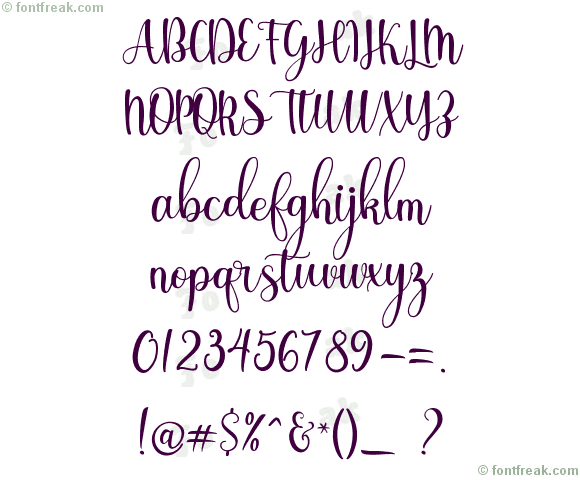
Shinesy
About Shinesy
Shinesy, designed by Burhan Afif, is a captivating script font that brings a touch of elegance and modernity to any design project. With its flowing, cursive style, Shinesy features fluid strokes that create a harmonious balance between sophistication and approachability. The font exhibits a medium stroke weight, providing legibility while maintaining an artistic flair. Its varied contrast enhances the visual interest, making it an excellent choice for designs that require a personal touch. The spacing is well-considered, allowing for seamless reading, which is essential for both print and digital applications.
This font is particularly well-suited for a variety of creative uses. It shines in wedding invitations, where its romantic curves can evoke emotions and set the tone for a special day. It also works wonderfully for branding projects, such as logos for cafes or boutiques, where an inviting and stylish appearance is crucial. Additionally, Shinesy can enhance the aesthetic of greeting cards and social media graphics, attracting attention with its unique charm. Graphic designers, small business owners, and content creators will find this font invaluable for adding a distinctive flair to their work.
What sets Shinesy apart is its versatility combined with an unmistakable personality. The font captures the essence of modern design while being rooted in traditional script elements, making it appealing to a wide audience. For those looking to elevate their projects with a stylish and functional typeface, the Shinesy font free download offers an accessible way to incorporate this beautiful design into various mediums. Embrace the elegance of Shinesy and watch your creative projects come to life with its enchanting script.